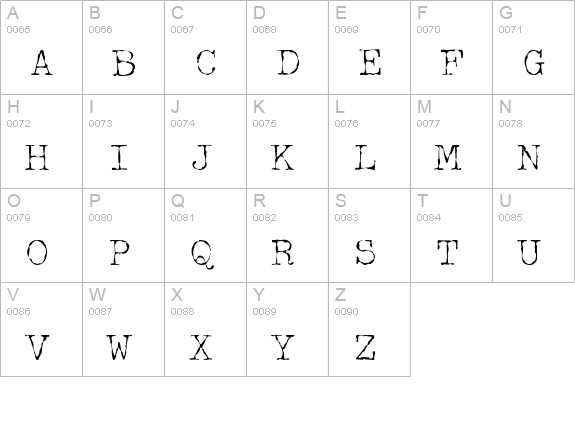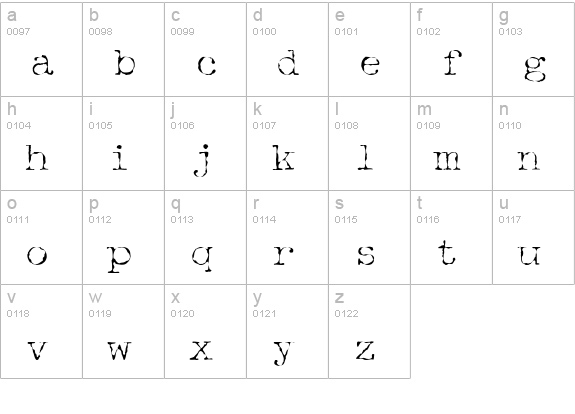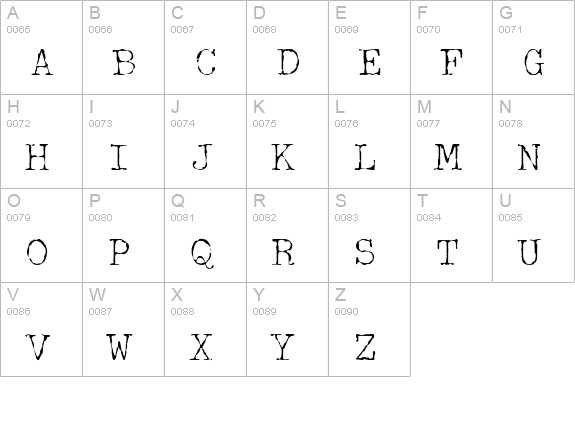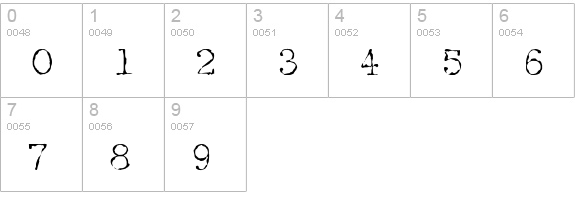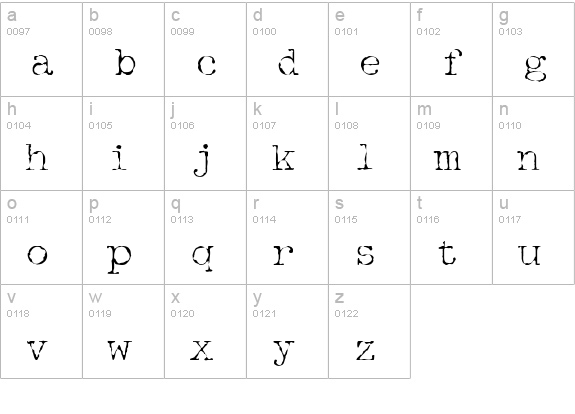
Mc Garey Fractured font is a unique and eye-catching typeface that brings a touch of creativity and modernity to any design project. With its fractured and edgy appearance, this font exudes a sense of dynamism and innovation. The irregular shapes and broken lines of Mc Garey Fractured font add a sense of unpredictability and excitement to your text, making it perfect for projects that require a bold and unconventional look. The best part? Mc Garey Fractured font is completely free to download at FontsMarket.com! You can easily add this striking font to your collection without any cost, making it a great choice for budget-conscious designers looking to elevate their work with a touch of originality. Don't miss out on the opportunity to enhance your projects with the captivating style of Mc Garey Fractured font - download it today and unleash your creativity!